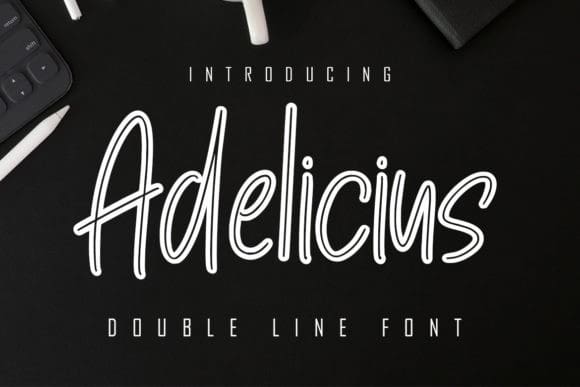
Adelicius Double Line Font
Adelicius Double Line Font is a simple and neat lettered display font. Add this font to your creative ideas and notice how it will make them stand out!